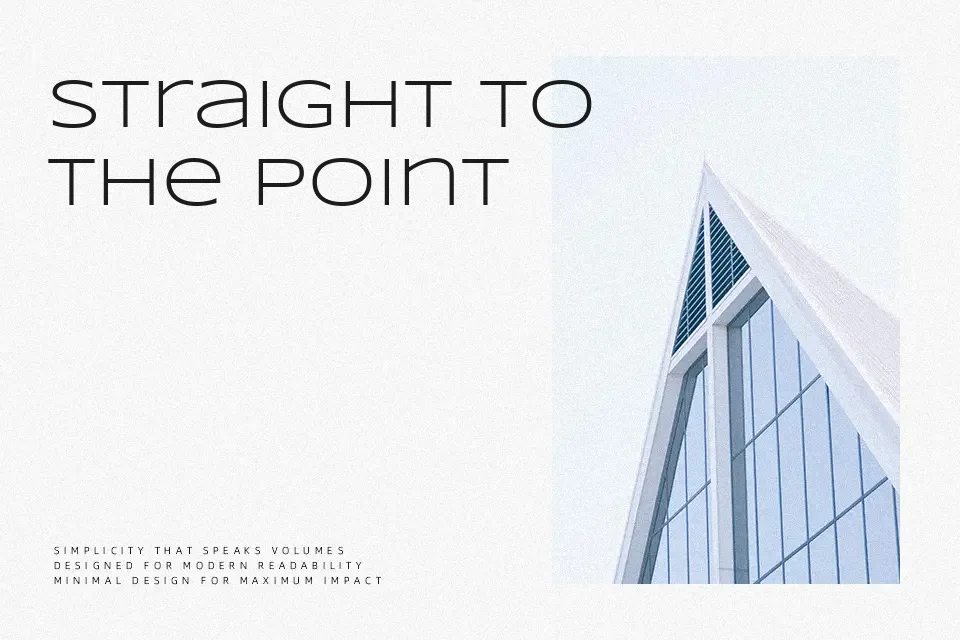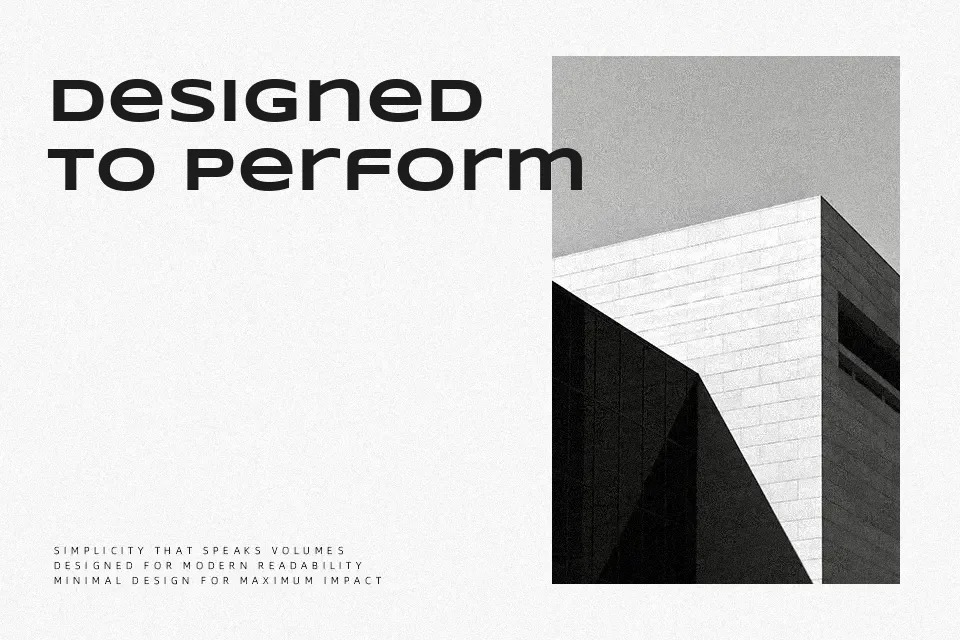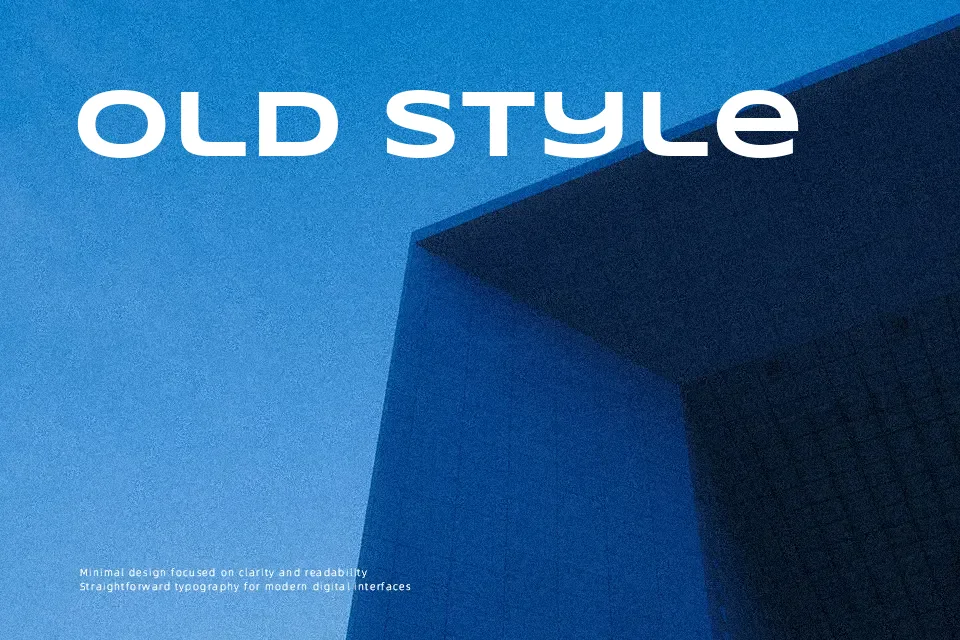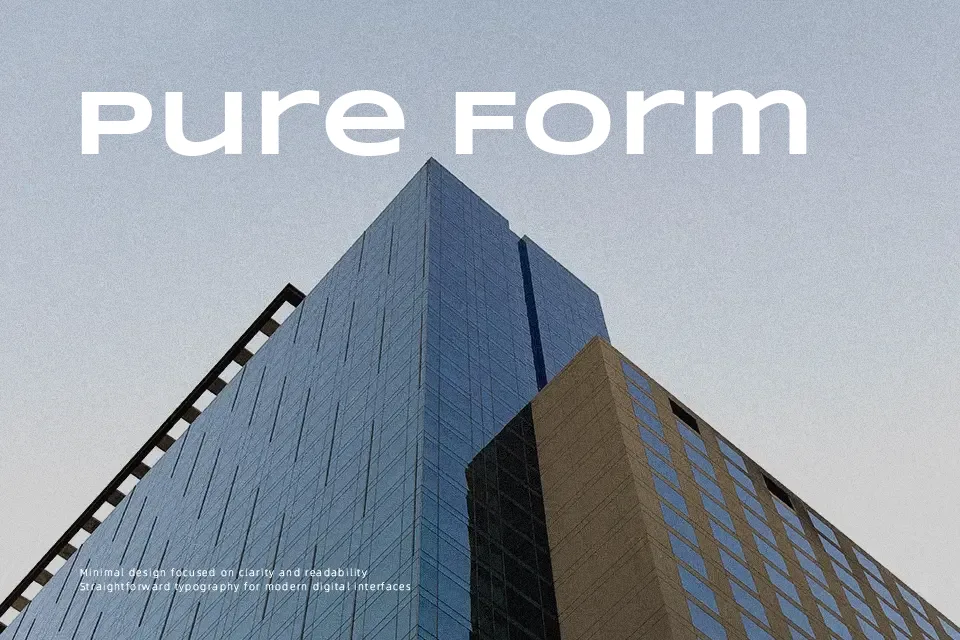
Syncopate Font
Designed by Astigmatic
Syncopate is a sans serif display face with a notably wide body, generous spacing, and a unicase construction where all letters sit at a single cap height. Strokes are clean and relatively light, so the bold weight still feels airy rather than blocky, which helps on bright, minimal layouts and digital screens. It works especially well for large headlines on posters, music or tech branding, and navigation labels where you want something orderly but not too corporate. Because of the rigid uppercase structure and limited weights, it tends to feel mechanical in long paragraphs and can look awkward in very small sizes, so it is better treated as a display accent instead of a workhorse text family.
large headlines on posters and event promos
tech or music-oriented wordmarks and logotypes
navigation labels and callouts in clean web layouts
long-form body copy or reading-heavy interfaces
small captions where unicase letters blur together
projects needing soft, handwritten, or organic character